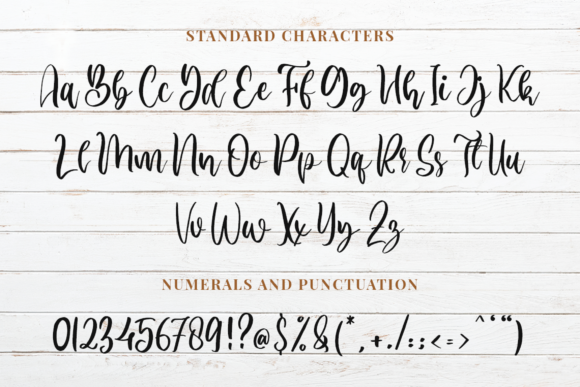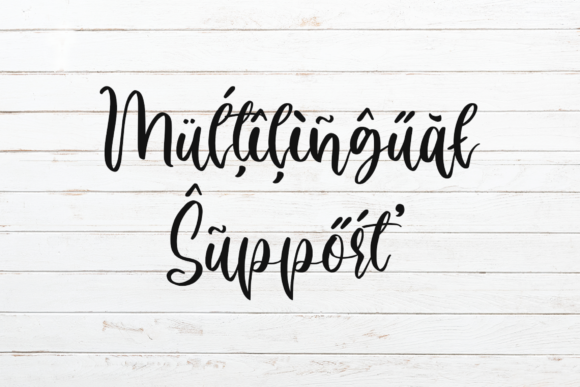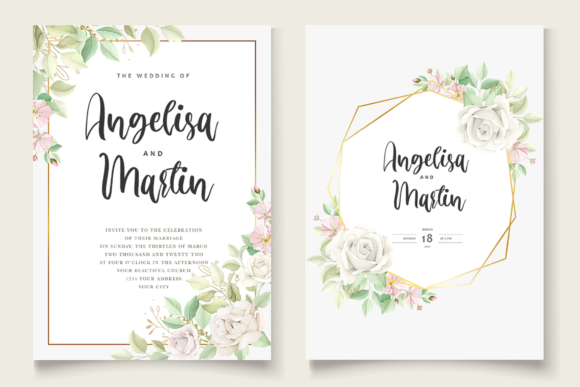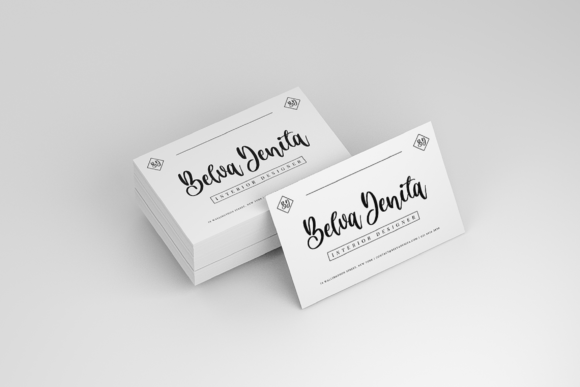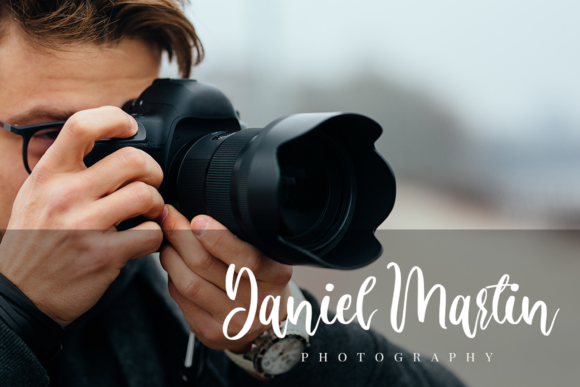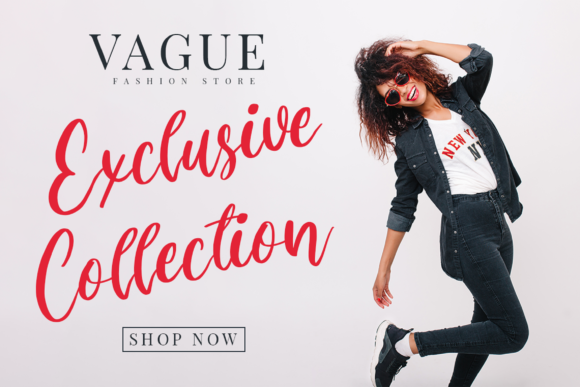
Discover the Sweet Charm of the Beautica Font
Have you ever found yourself daydreaming about the perfect font to capture the essence of a special moment? Perhaps it’s a wedding invitation, a heartfelt thank you note, or a birthday greeting that requires a touch of warmth and personality. For designers and creatives, finding the right font can make all the difference in bringing a design to life.
Enter the Beautica Font, a lovely script font that exudes a sweet, flowing charm. Designed to add a personal touch to various designs, Beautica Font is the perfect choice for wedding invitations, thank you cards, and other special occasions. Its versatility and elegance make it a valuable asset for designers looking to elevate their creations.
Key Features of Beautica Font
- Unique Characteristics: Beautica Font features a unique blend of elegance and sophistication, with a mix of classic and modern elements that make it perfect for a wide range of design projects.
- Kerning and Glyphs: Beautica Font features advanced kerning and glyph support, ensuring that text flows smoothly and looks professional, even in complex layouts.
Beautica Font Review
As a designer, I was excited to dive into Beautica Font, but my experience was a mixed bag. Let’s start with the good stuff ✨.
- The font’s elegant and feminine design makes it perfect for projects that need a touch of sophistication and glamour.
However, I encountered some limitations that made me hesitant to fully endorse Beautica Font ⚠️.
- The font’s complexity can make it difficult to pair with other fonts, which may limit its versatility in certain design projects.
Overall, I would say that Beautica Font is a solid choice for designers who need a sophisticated and customizable font for their projects. However, it may not be the best fit for every project or designer. With a bit more flexibility and a more permissive licensing model, Beautica Font could be a truly top-notch font. As it stands, it’s a good option to consider, but it’s not a game-changer.
Beautica Font is ideal for creating elegant and sophisticated designs, making it perfect for:
Editorial and publishing projects
For optimal results, use Beautica Font in combination with a clean and simple design aesthetic.